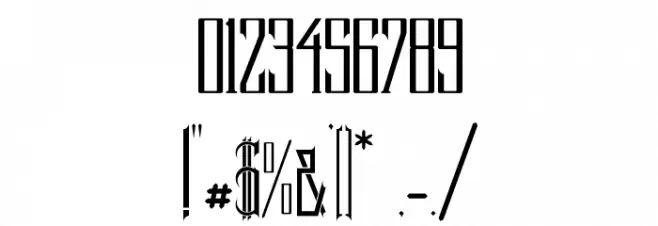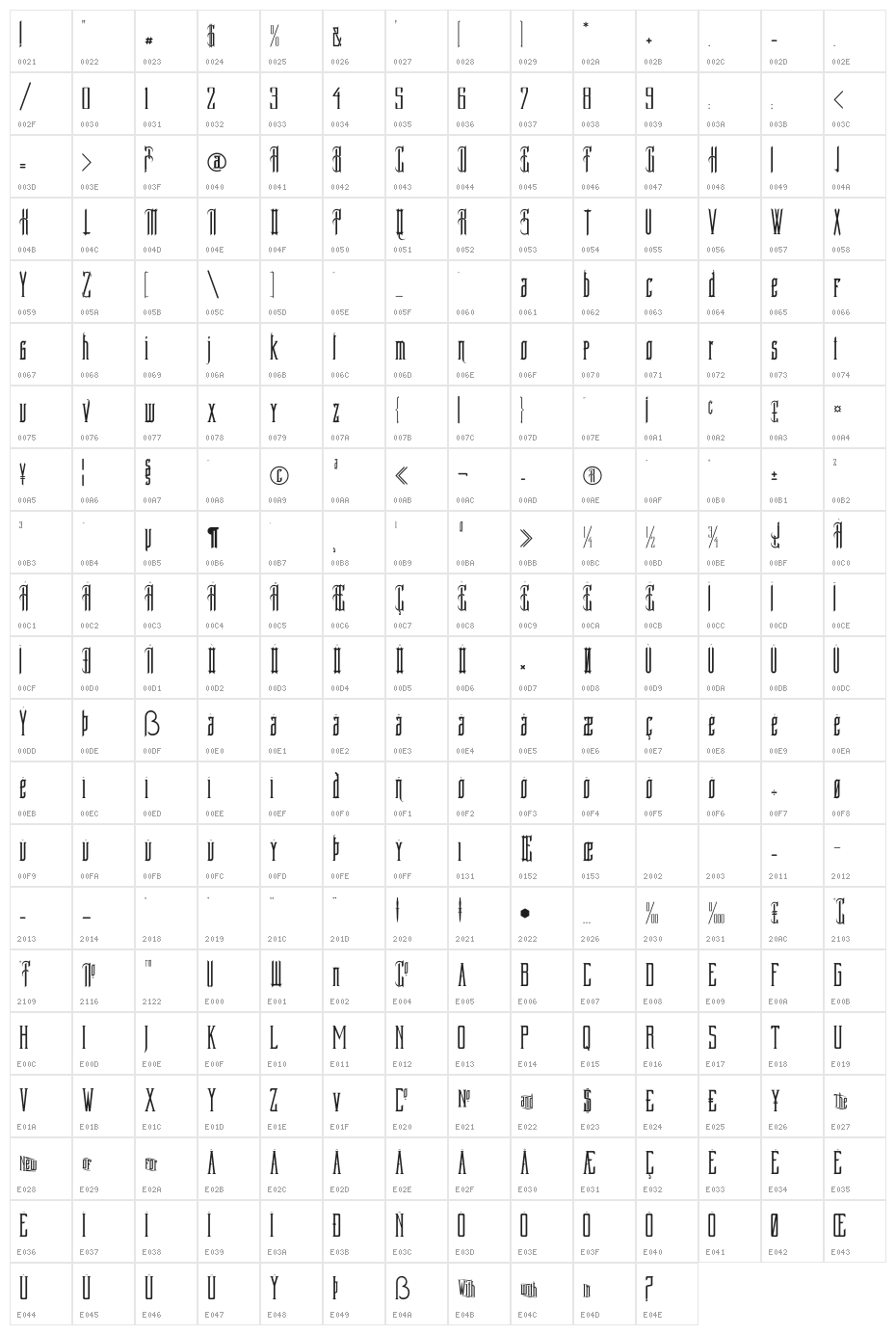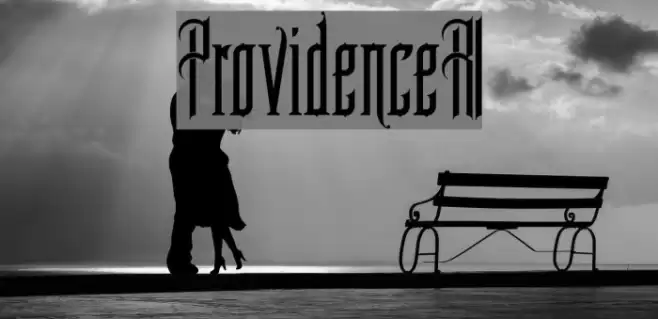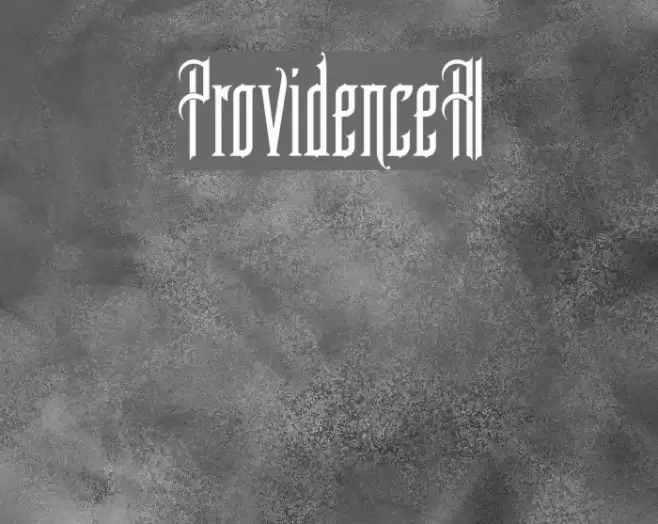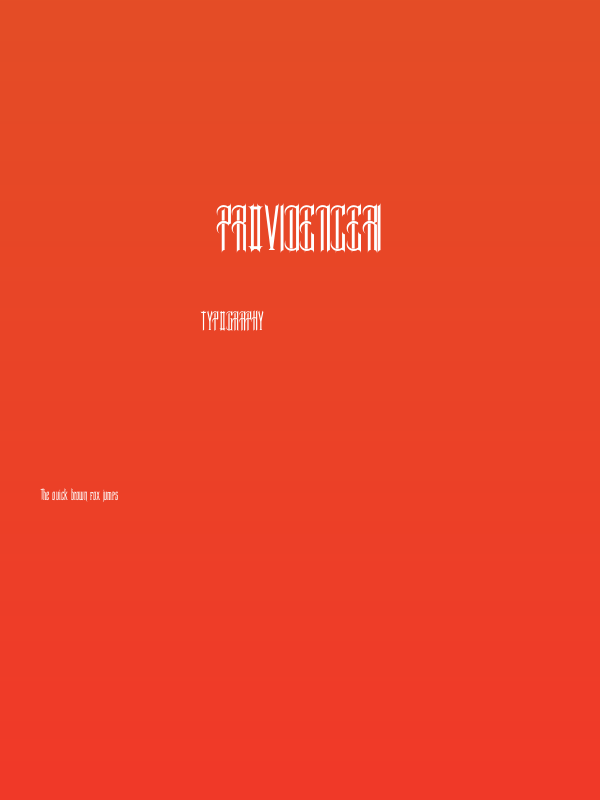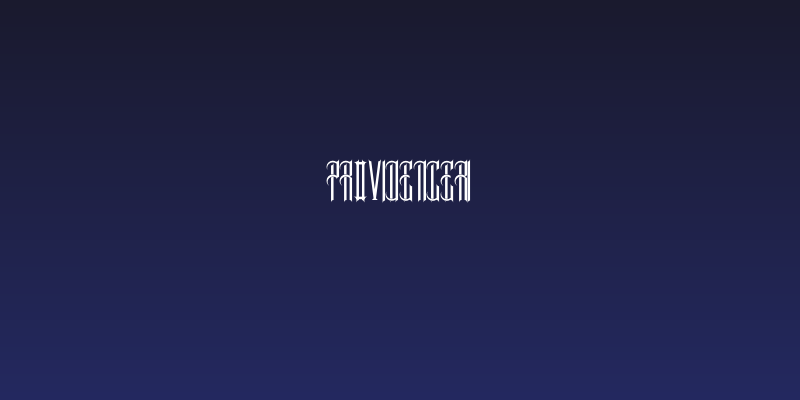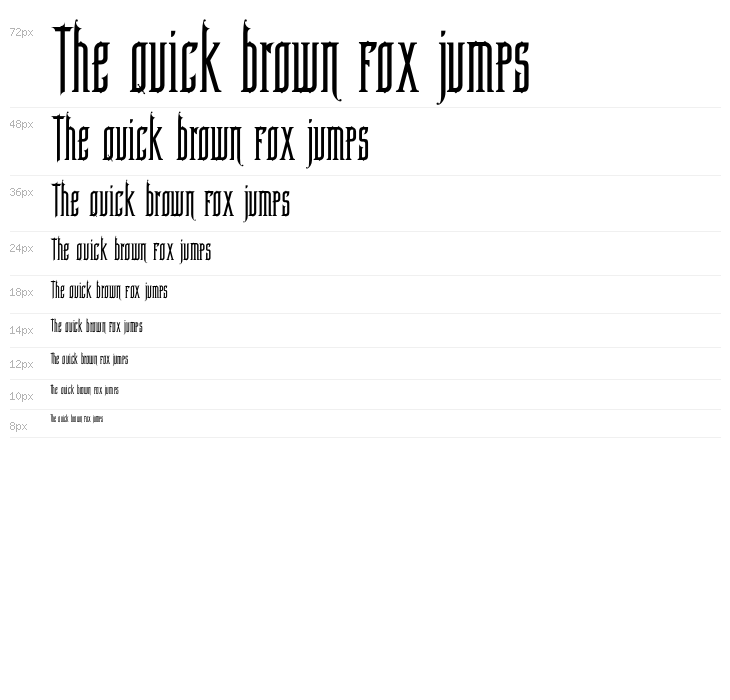
ProvidenceRI Font
ProvidenceRI Description
This font features a striking and bold design, reminiscent of traditional Blackletter styles. The characters are tall and narrow, with sharp, angular serifs and intricate detailing that adds a sense of elegance and formality. The uppercase letters are particularly ornate, with elaborate flourishes that enhance their visual impact. The lowercase letters maintain the same intricate style but are slightly more subdued, providing a balanced contrast. Numbers and special characters are designed with the same attention to detail, ensuring consistency across all elements. This font's unique style makes it ideal for projects that require a touch of historical or gothic flair.
| Proposed Projects | Ideal for use in branding, posters, book covers, and any design requiring a gothic or historical aesthetic. |